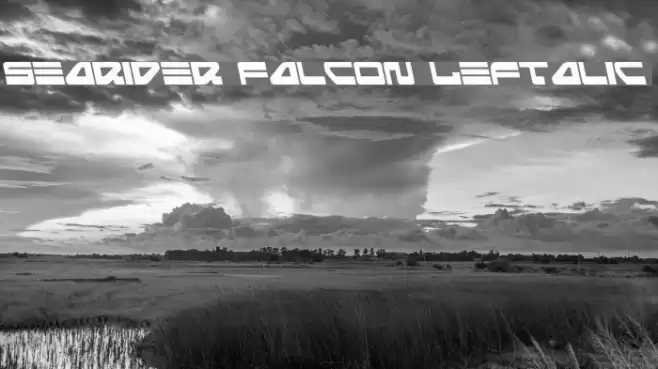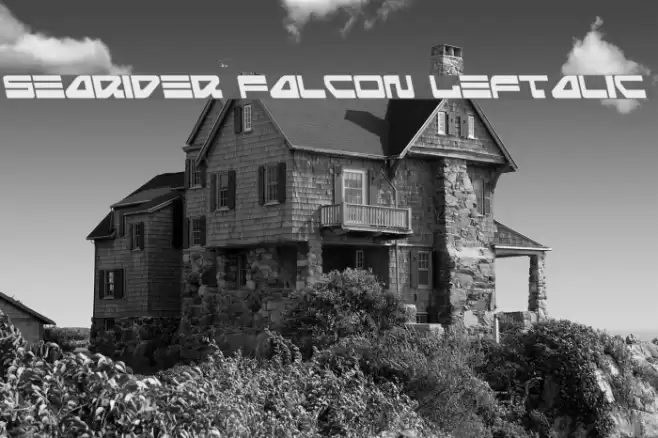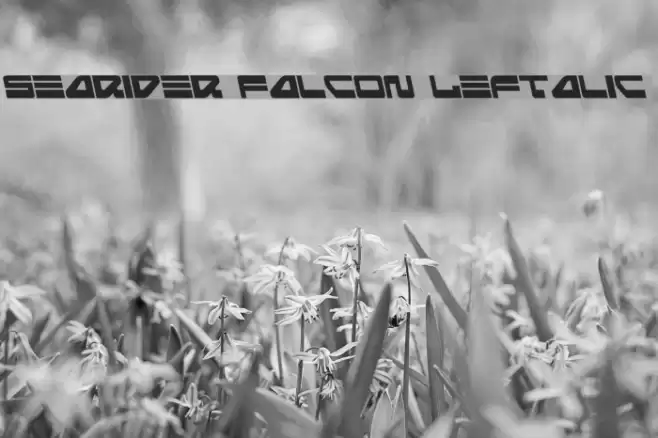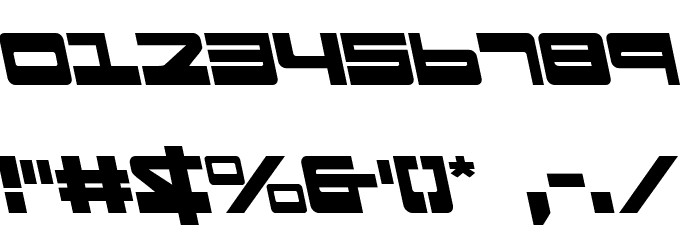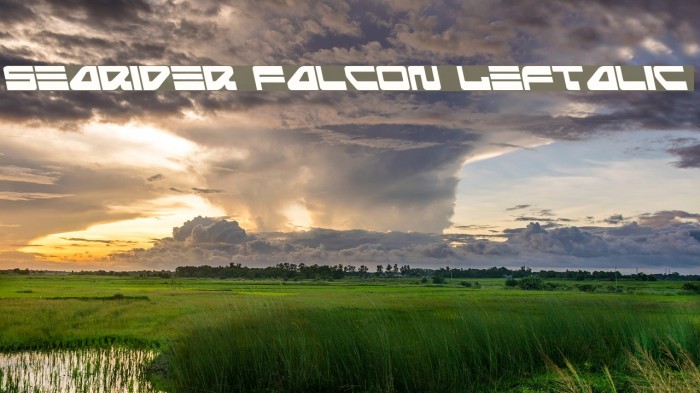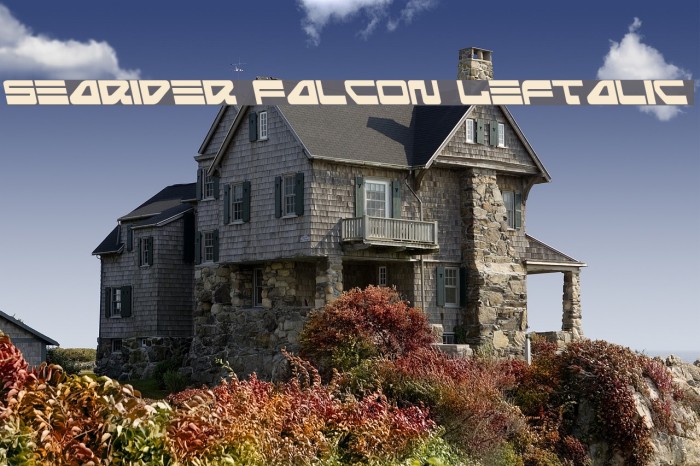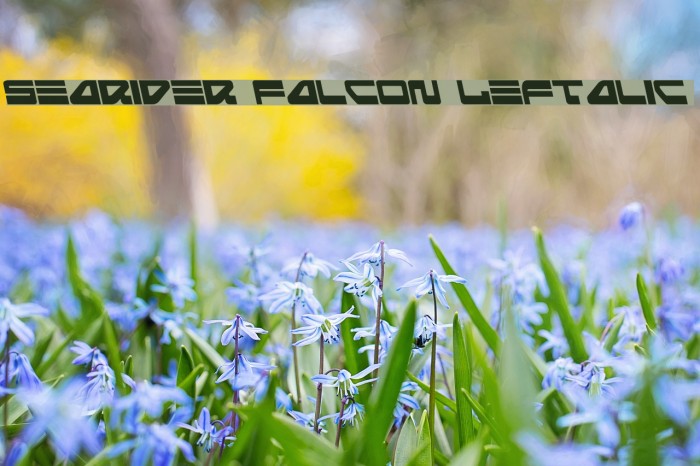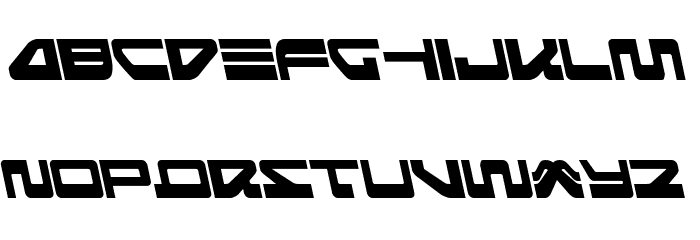
Searider Falcon Leftalic Font
Searider Falcon Leftalic Description
This font features a bold, futuristic design with angular and geometric shapes. The characters are constructed with sharp edges and a consistent thickness, giving it a strong, impactful appearance. The uppercase and lowercase letters maintain a uniform style, enhancing its cohesive look. The numbers and special characters follow the same design principles, ensuring a seamless integration across all text elements. Its unique style makes it suitable for projects that require a modern and edgy aesthetic.
A bold, futuristic font with angular, geometric shapes and consistent thickness from Sci-fi fonts.
- Proposed Projects: Ideal for sci-fi themed designs, video game titles, tech branding, and futuristic posters.
- Overall Style: Futuristic